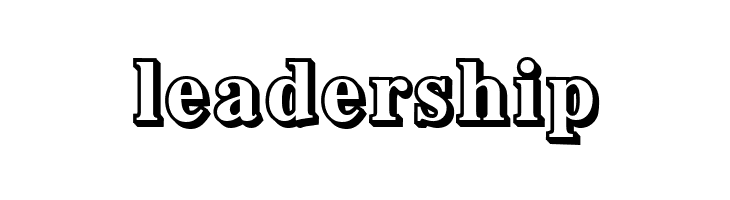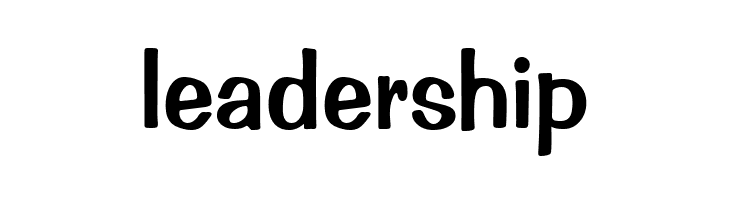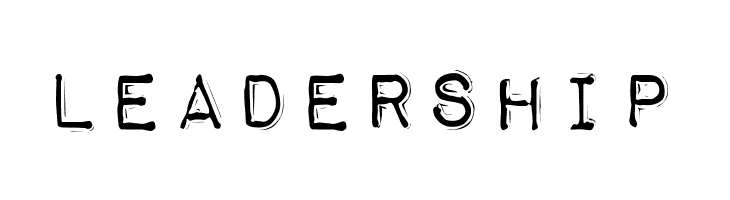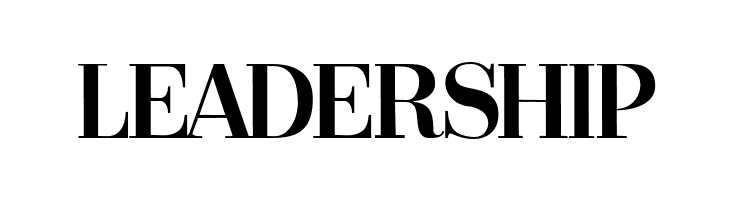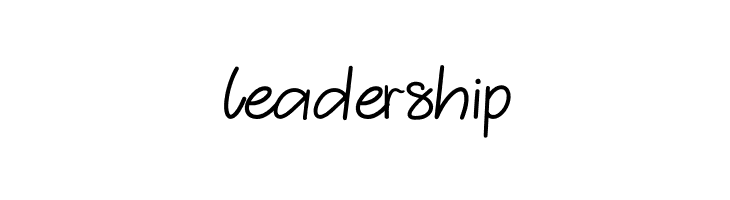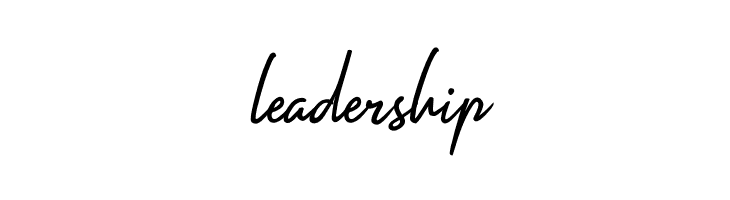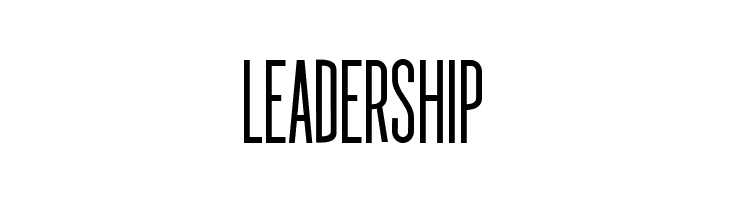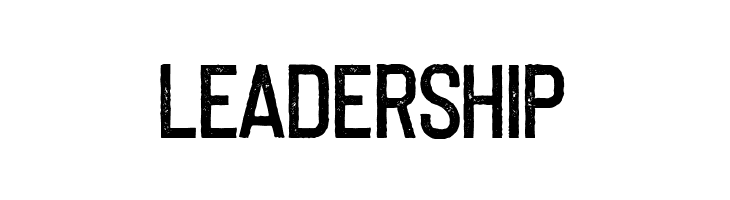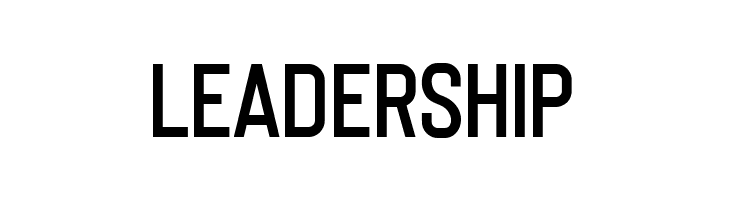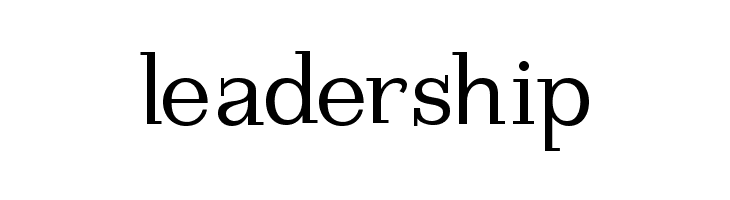
A playful, informal handwritten font with a casual and free-flowing style.
A playful, casual handwritten font with dynamic and irregular strokes.
A playful, casual handwritten font with smooth curves and a friendly vibe.
A bold, modern typeface with clean, geometric lines and consistent stroke width.
A bold, condensed, and modern sans-serif font with high contrast.
A bold, high-contrast serif font with a commanding presence.
A bold, geometric font with strong, angular lines and a modern aesthetic.
A classic serif typeface with sharp serifs and balanced proportions, ideal for formal and professional use.
A bold, outlined font with a playful and dynamic style.
A whimsical font blending serif and script styles with playful curves.
Bold, shadowed font with a classic serif touch.
A flowing, cursive script font with elegant and sophisticated styling.
A bold, decorative font with a vintage, high-contrast style and elegant serifs.
A decorative font with characters in stamp-like frames, combining bold sans-serif letters with ornate borders.
A decorative, vintage-style font with ornate, framed characters.
A bold, decorative font with characters in stamp-like borders.
A decorative font with characters enclosed in ornate, stamp-like frames.
A vintage, decorative font with characters in stamp-like borders.
A vintage, decorative font with ornate, framed characters resembling postage stamps.
A bold, italic font with a dynamic and modern style.
A bold, condensed font with rounded edges and tight spacing, ideal for impactful headlines.
A bold, shadowed font with filled characters for a striking, three-dimensional look.
A bold, shadowed font with a playful, three-dimensional look.